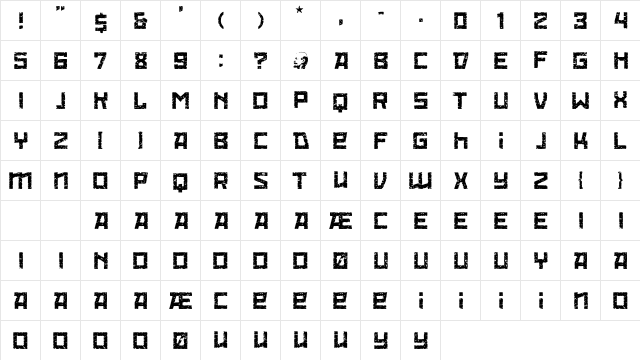
Red October Eroded Regular
| Foundry | Neogrey Creative |
| Designer | Ivan Filipov, neogrey creative |
Design Context for Red October Eroded Typeface
Red October Eroded trades polish for personality, using distressed and eroded forms to bring grit and attitude to creative work.
Suited to punk-influenced zines, underground music branding, streetwear, and raw, anti-corporate design.
Pro Tip: Pair Red October Eroded with intentionally raw or lo-fi design elements. Fighting against it with overly polished surroundings will undermine its personality.